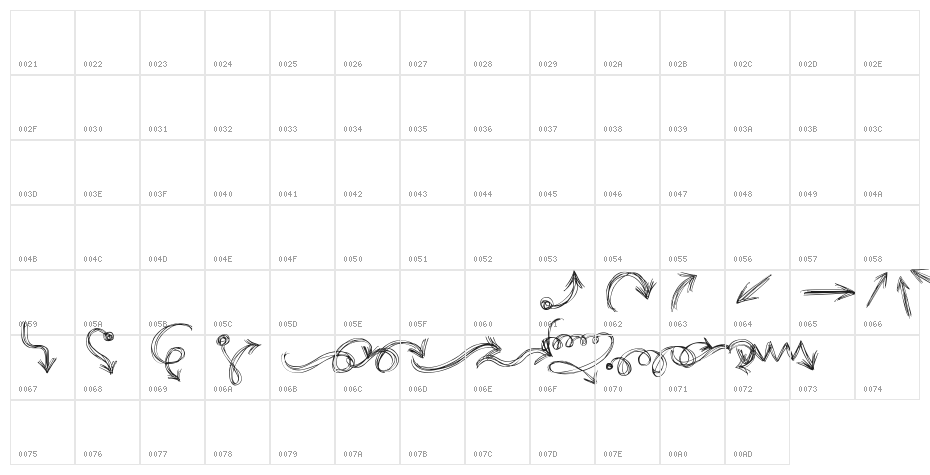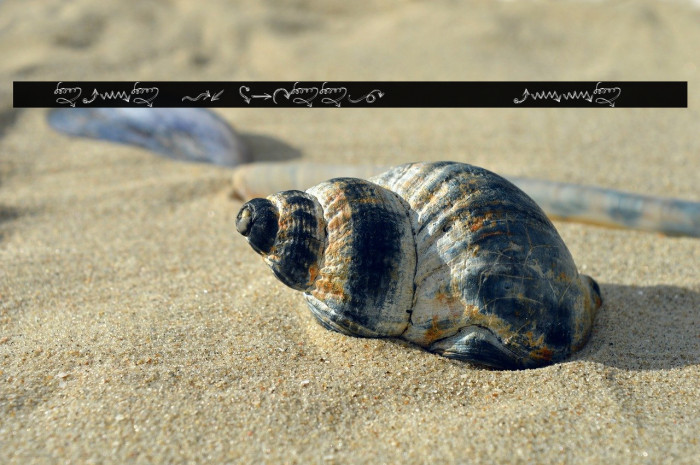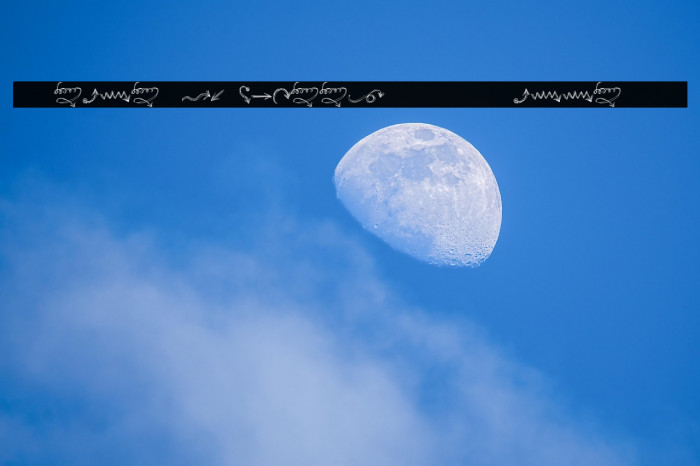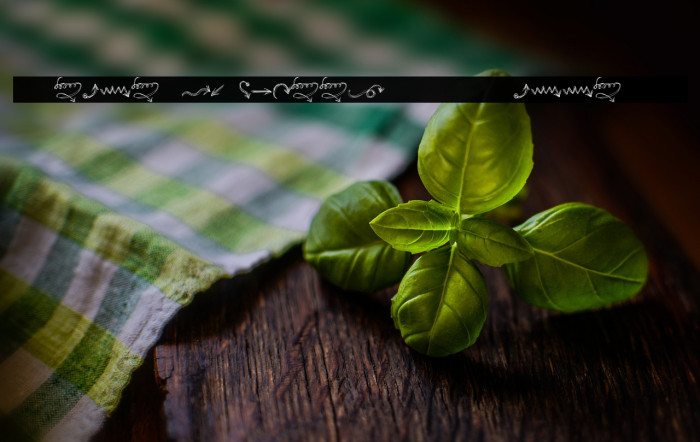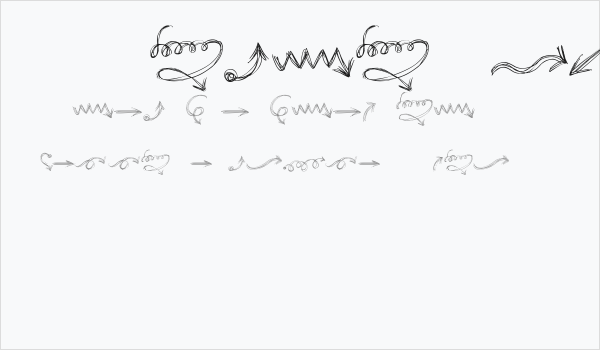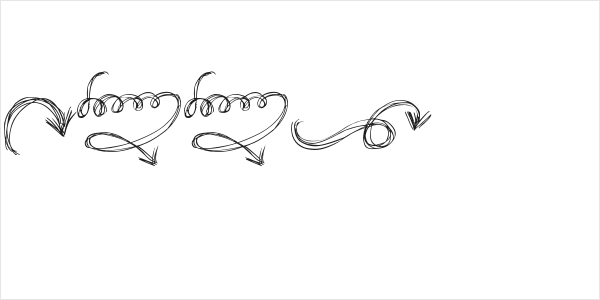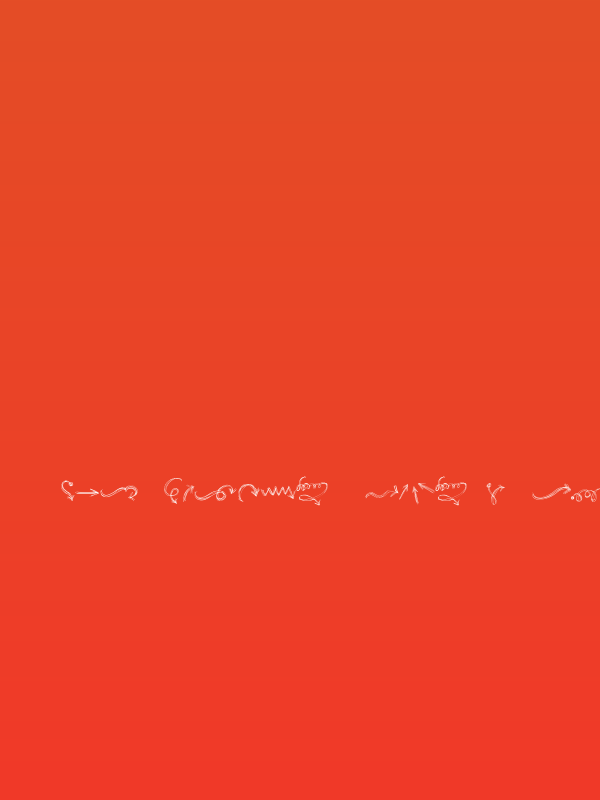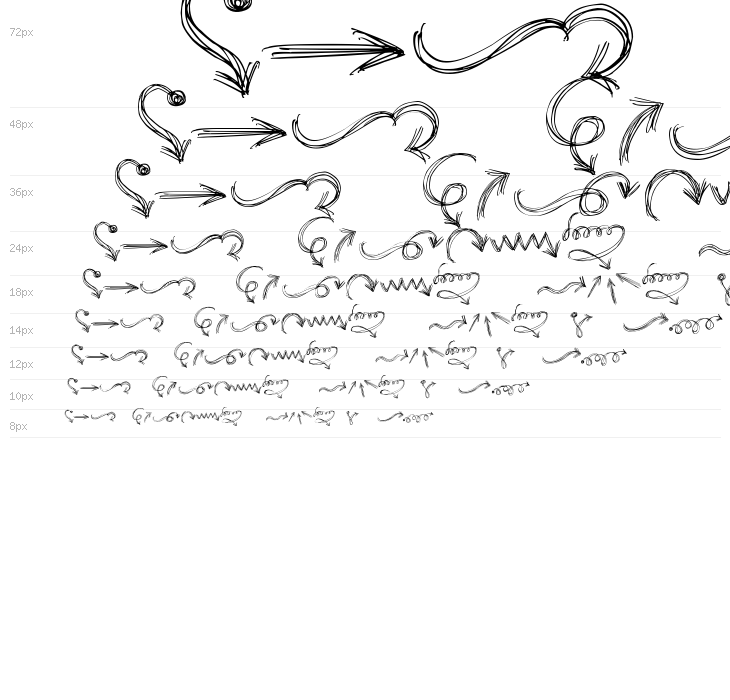
Go around the books 2022 arrows Font
Go around the books 2022 arrows Description
This collection features a series of decorative arrows with a whimsical and artistic flair. Each arrow is uniquely designed with intricate curls, loops, and twists, giving them a hand-drawn appearance. The style is playful and imaginative, making them ideal for creative projects. The arrows vary in direction and complexity, offering a diverse range of options for visual storytelling or design embellishments.
| Use Case | Decorative elements, Artistic embellishments |
| Proposed Projects | Ideal for creative projects such as scrapbooking, invitations, artistic presentations, or any design work requiring a playful and decorative touch. |